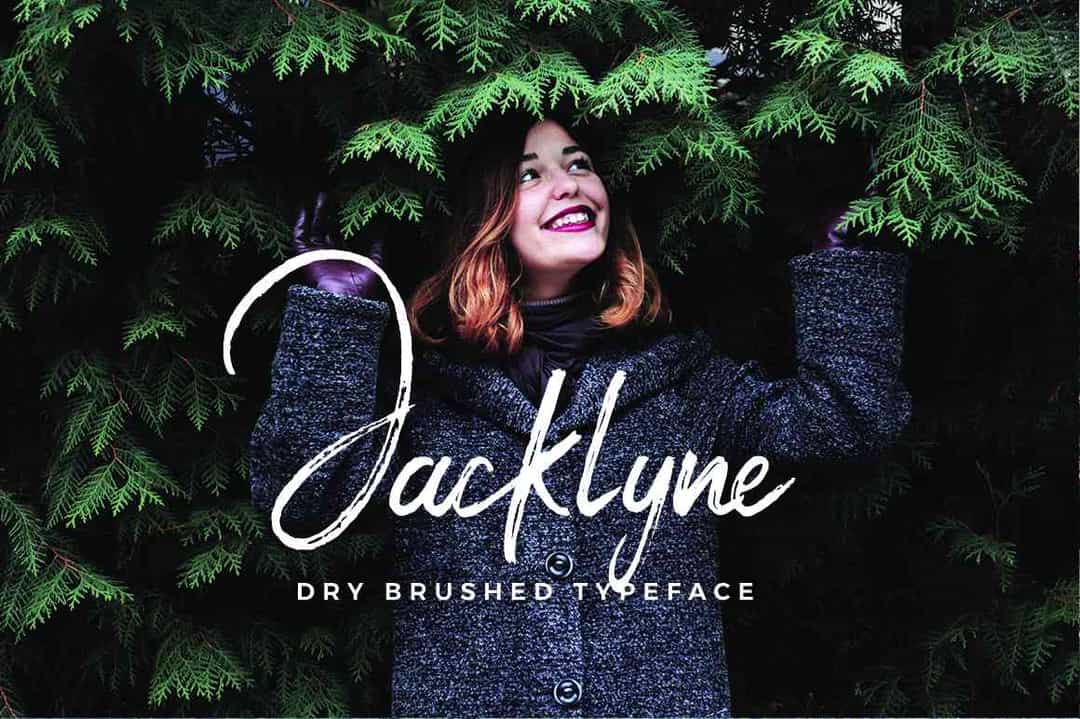
Jacklyne is a dry hand-lettering script font with a clear style and dramatic movement this font is great for your next creative project such as logos, printed quotes, invitations, cards, product packaging, headers, Logotype, Letterhead, Poster, Apparel Design, Label, and etc.